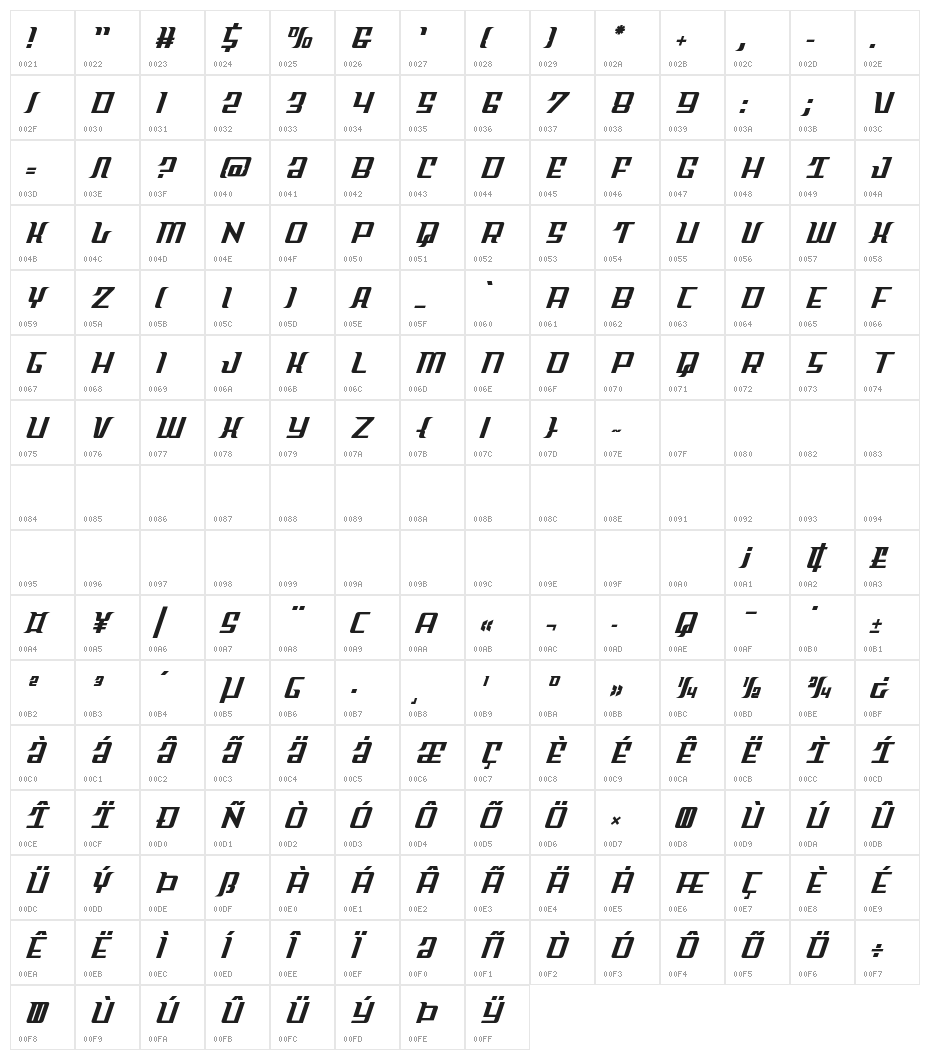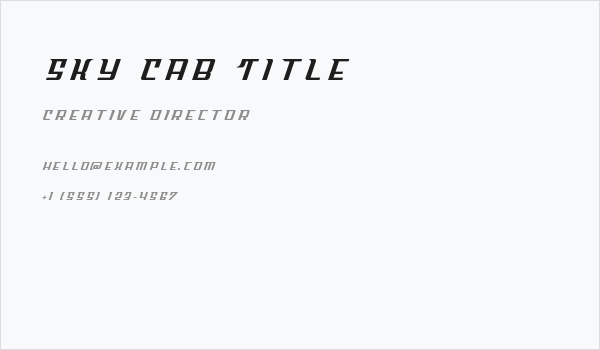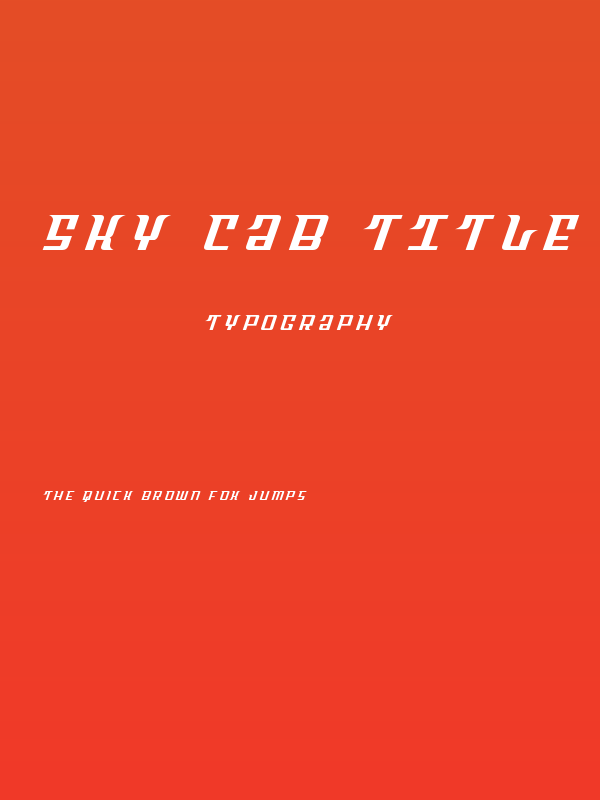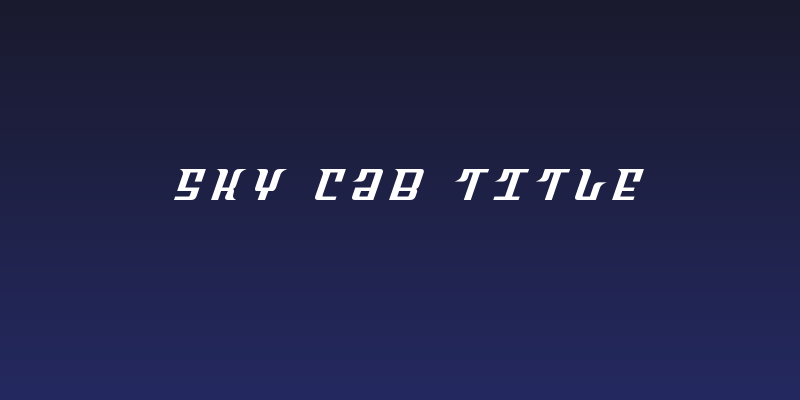
Sky Cab Title Font
Sky Cab Title Description
This font features a bold, angular design with a futuristic and dynamic appearance. The characters are slightly slanted, giving a sense of motion and energy. The uppercase and lowercase letters share a consistent style, with sharp edges and a geometric structure. Numbers and special characters maintain the same bold and angular aesthetic, ensuring uniformity across all glyphs. The font's unique style makes it stand out, suitable for projects that require a modern and edgy look.
| Proposed Projects | Ideal for sci-fi themed designs, video game titles, tech branding, and dynamic posters. |